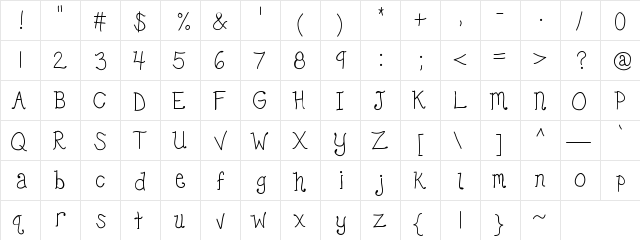
KBhearmeplay Medium Font Preview
KBhearmeplay Medium
Design Context for KBhearmeplay Typeface
KBhearmeplay takes a measured approach to typography — its balanced proportions and neutral character make it a reliable workhorse for both digital and print work.